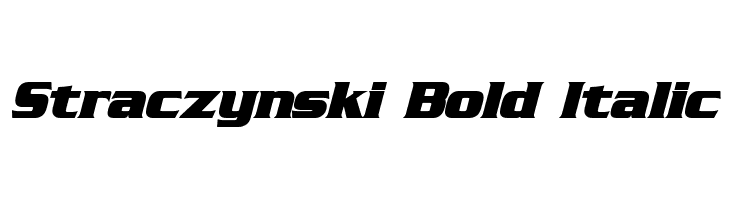
A bold, italicized font with a dynamic and energetic style.
A bold, modern italic font with angular, dynamic characters.
A bold, geometric font with a futuristic and angular design.
A bold, italicized font with sharp, angular edges and a futuristic look.
A bold, italicized font with a futuristic and dynamic style.